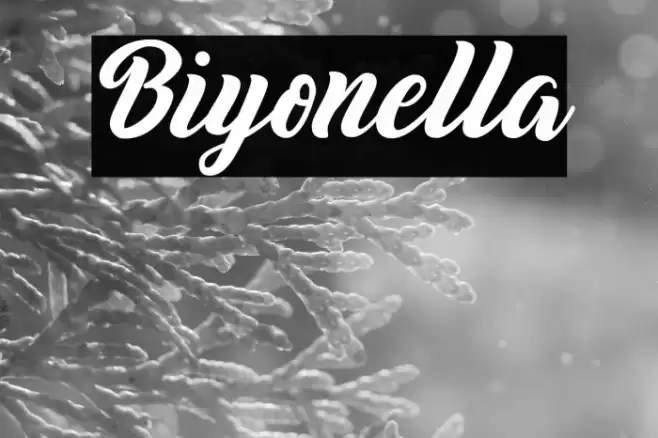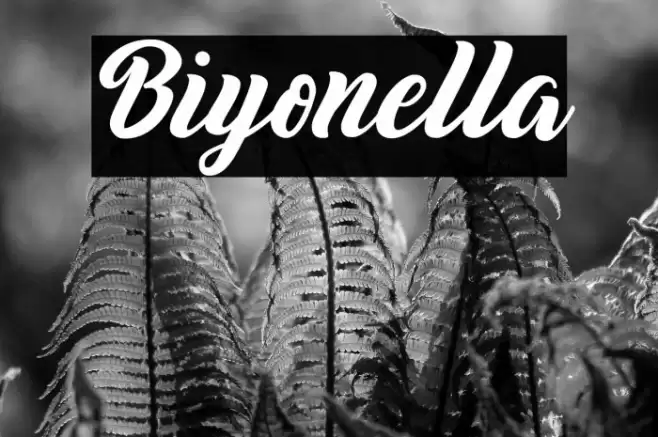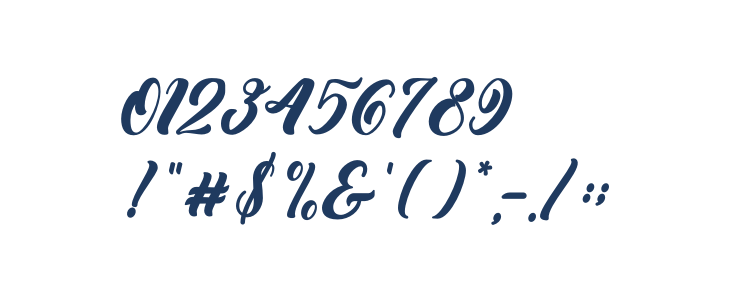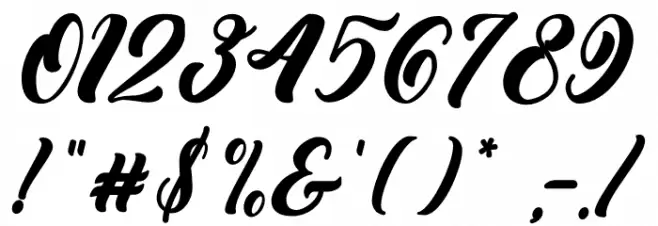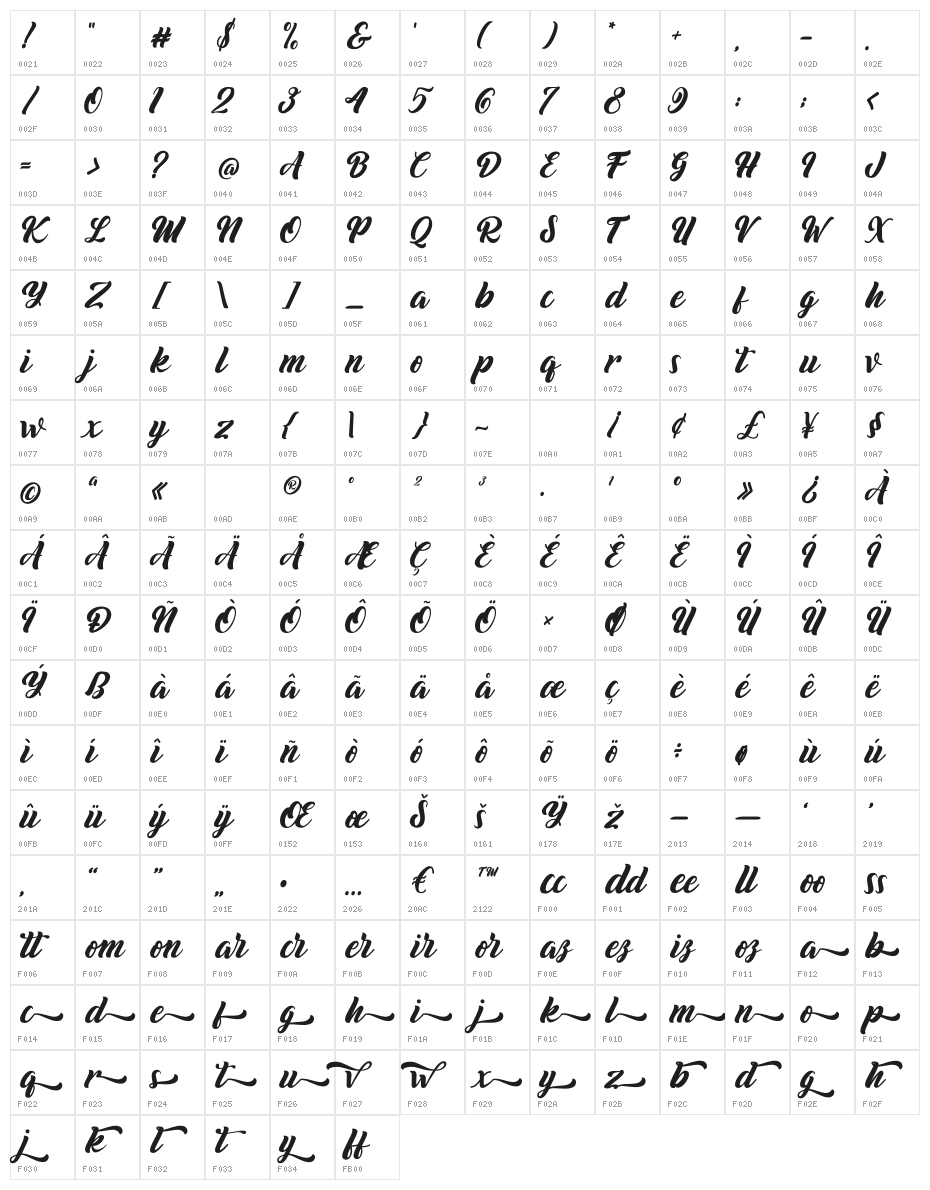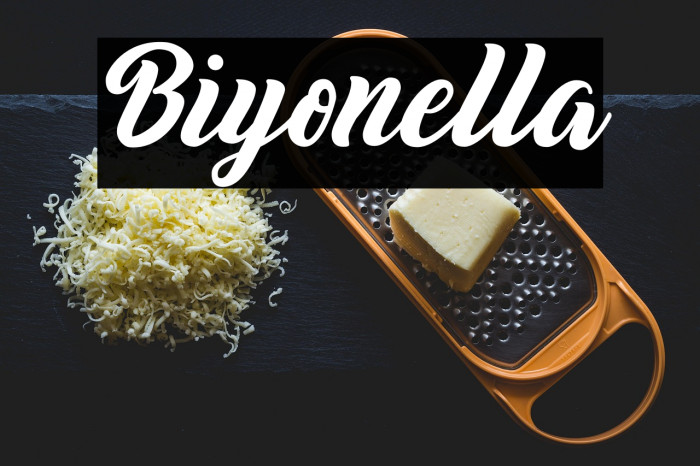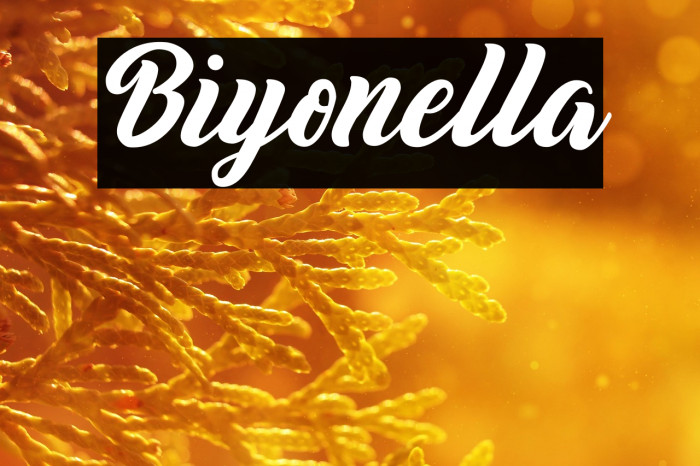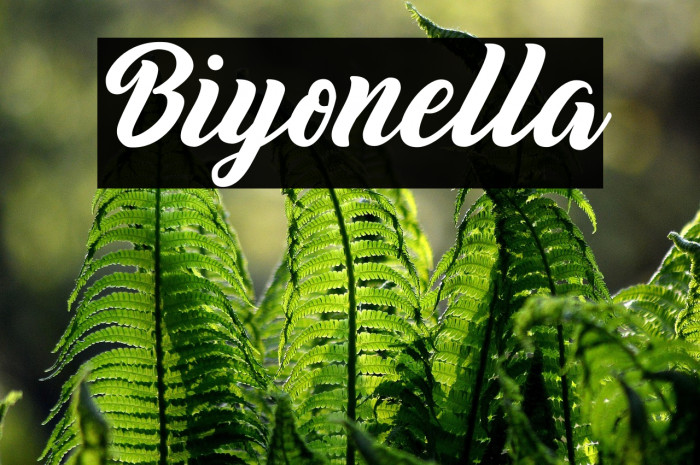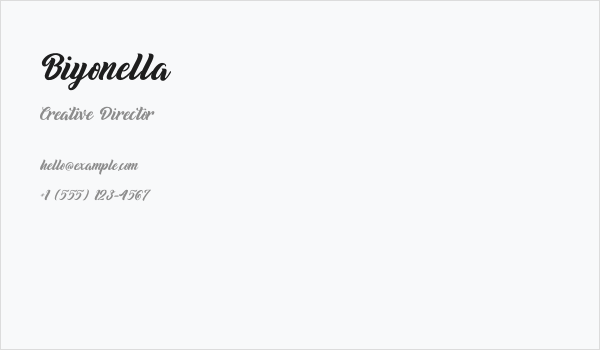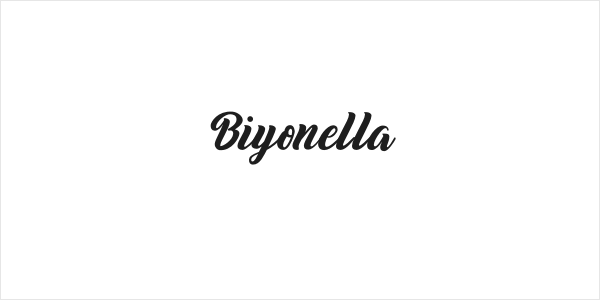
Biyonella Font
Biyonella Description
This font features a bold, cursive style with smooth, flowing lines that create a sense of elegance and movement. The letters are interconnected, giving it a handwritten feel, yet maintaining a consistent and polished appearance. The uppercase letters are slightly larger and more pronounced, while the lowercase letters maintain a balanced and harmonious look. The numbers and special characters are designed to match the overall aesthetic, ensuring a cohesive appearance across all text. This font is ideal for projects that require a touch of sophistication and flair.
A bold, cursive font with elegant, flowing lines and a handwritten feel from Regular fonts.
- Font: Biyonella
- Proposed Projects: Ideal for wedding invitations, greeting cards, branding, and elegant packaging designs.
- Character Spacing: Tight
- Overall Style: Elegant
- Use Case: Logos, Invitations, Decorative text